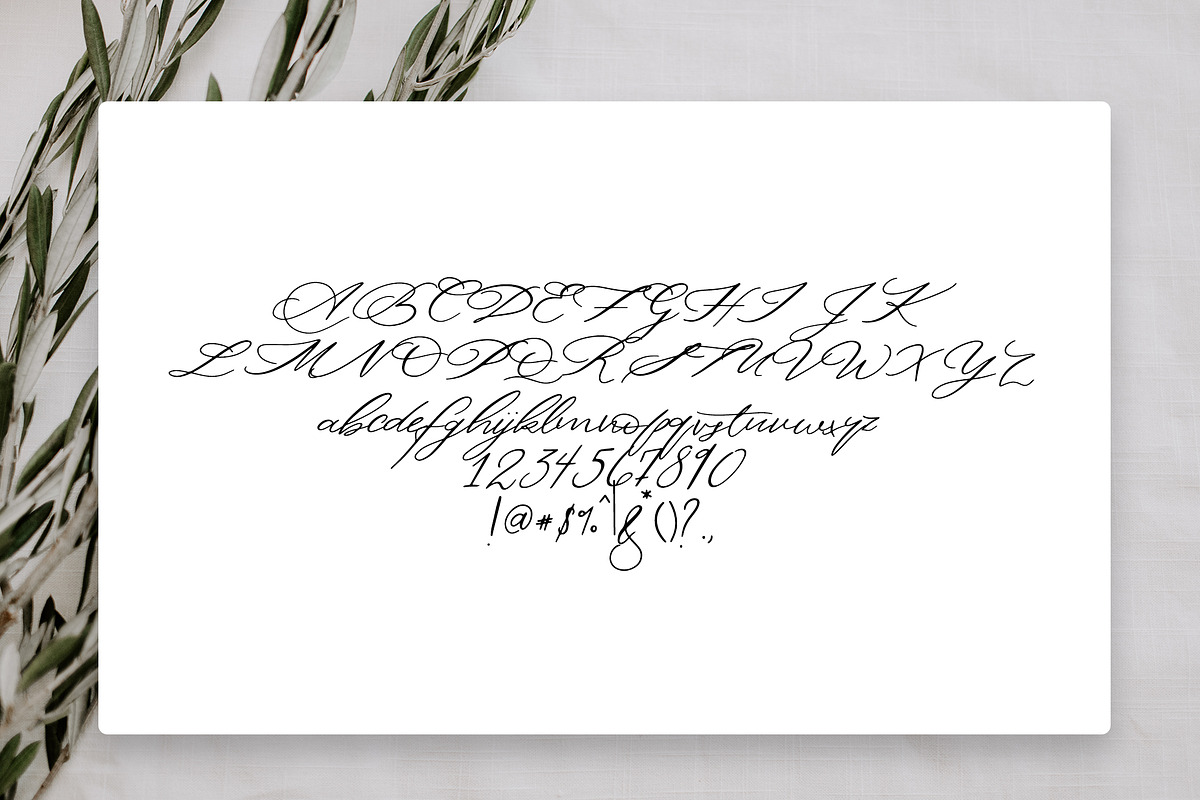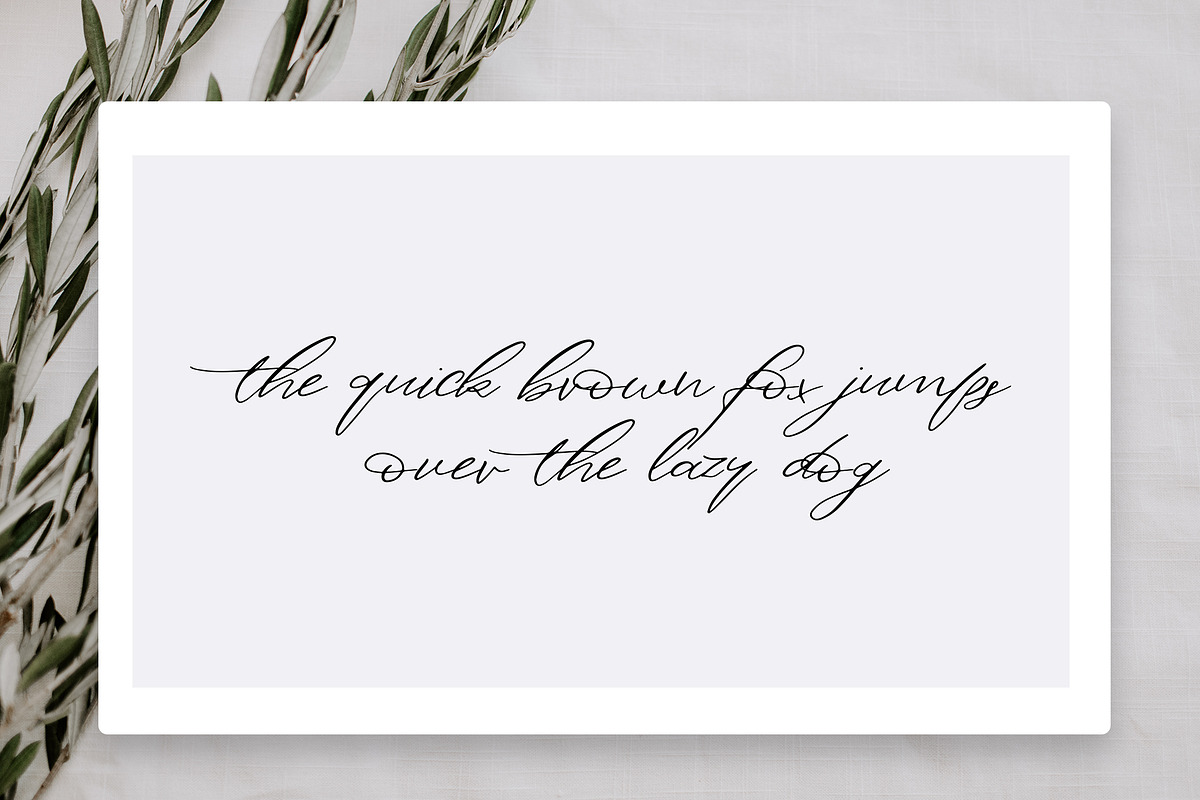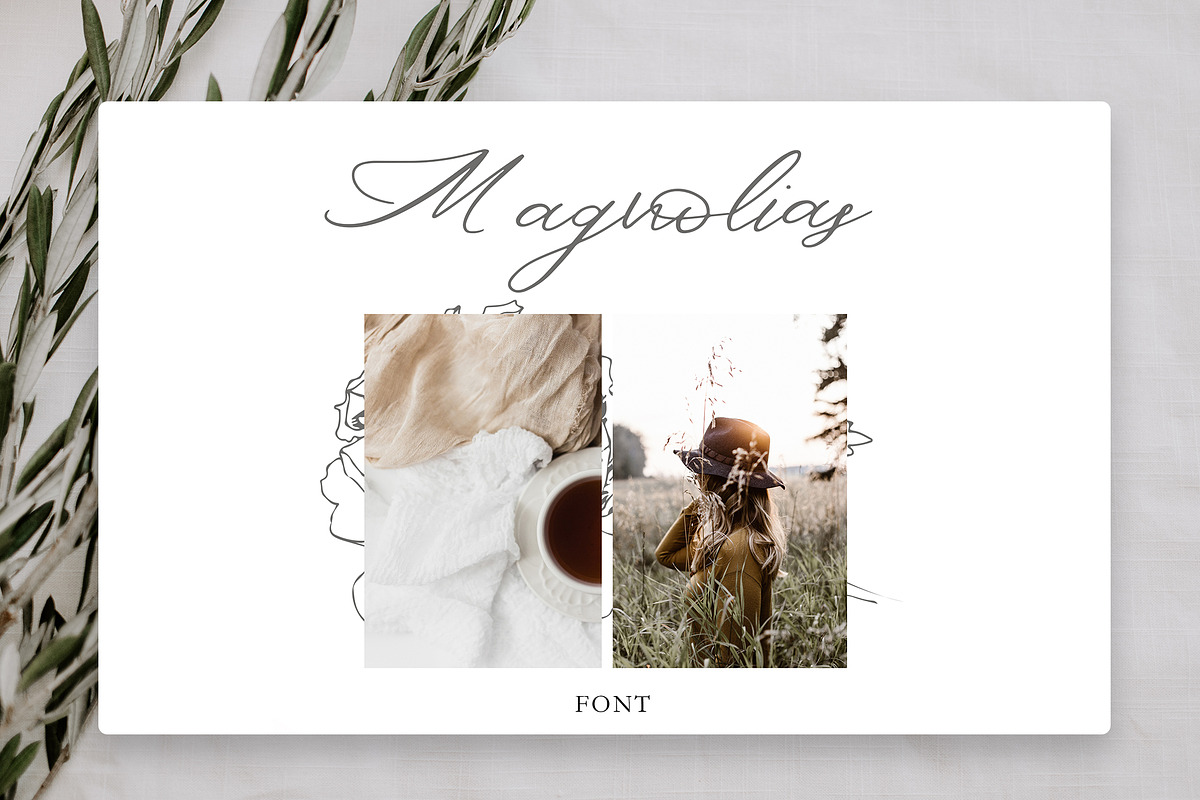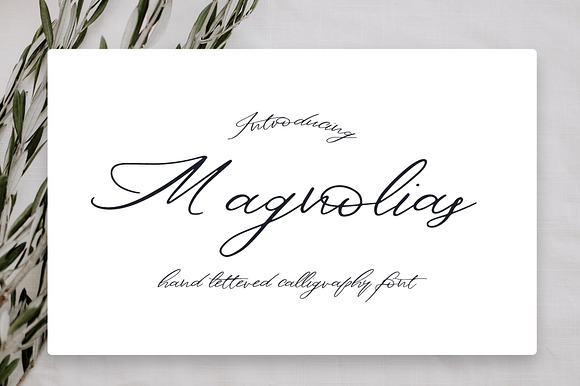
Magnolias Font
The Magnolias font is a rustic traditional font with lots of southern charm. Simple, elegant & neat. Perfect for any design project.
Magnolias Font by The Besotted Co fits naturally into Branding, posters, packaging, typography.